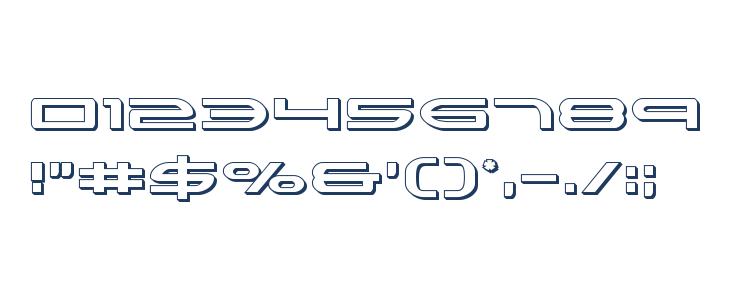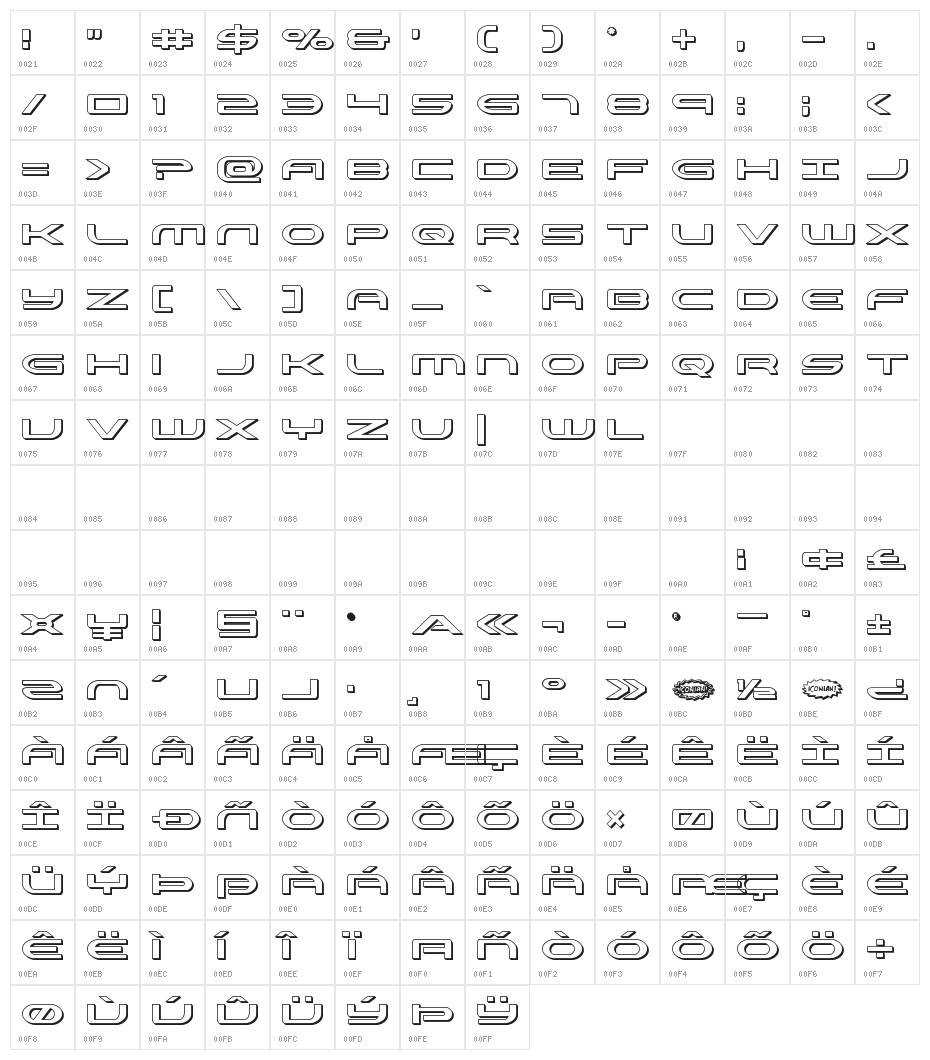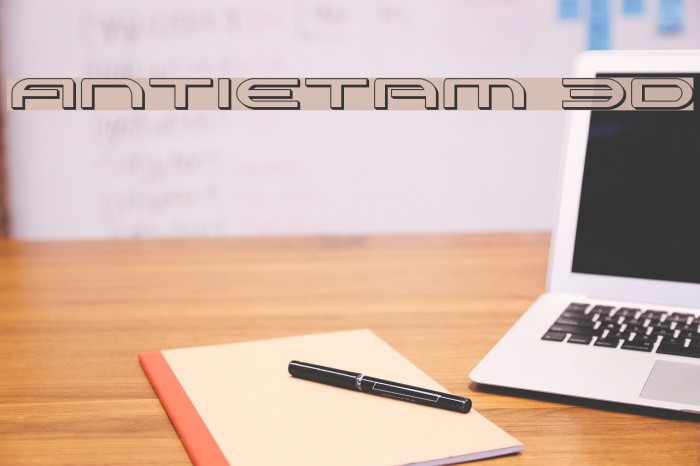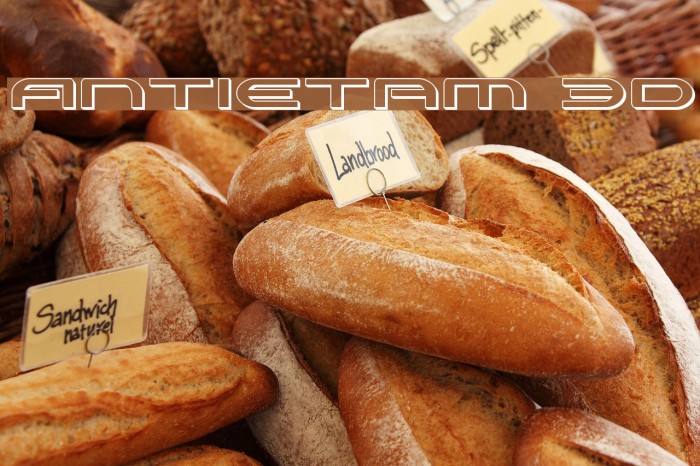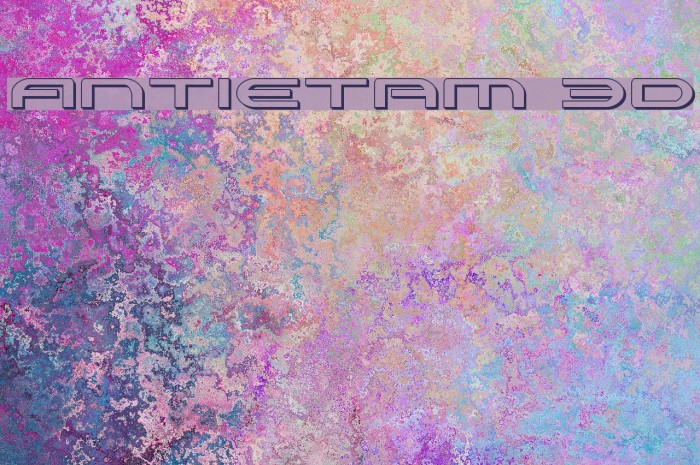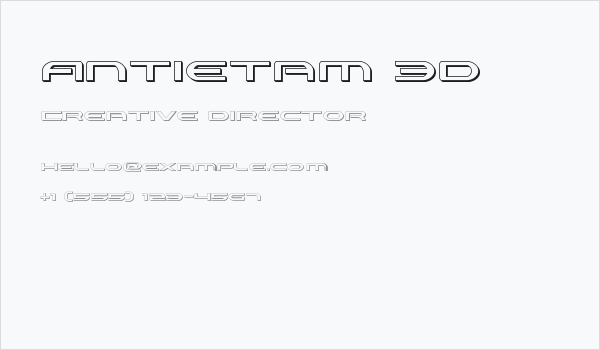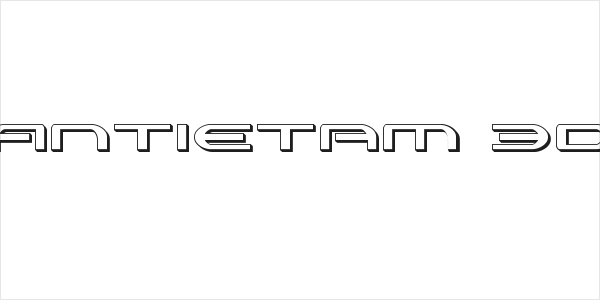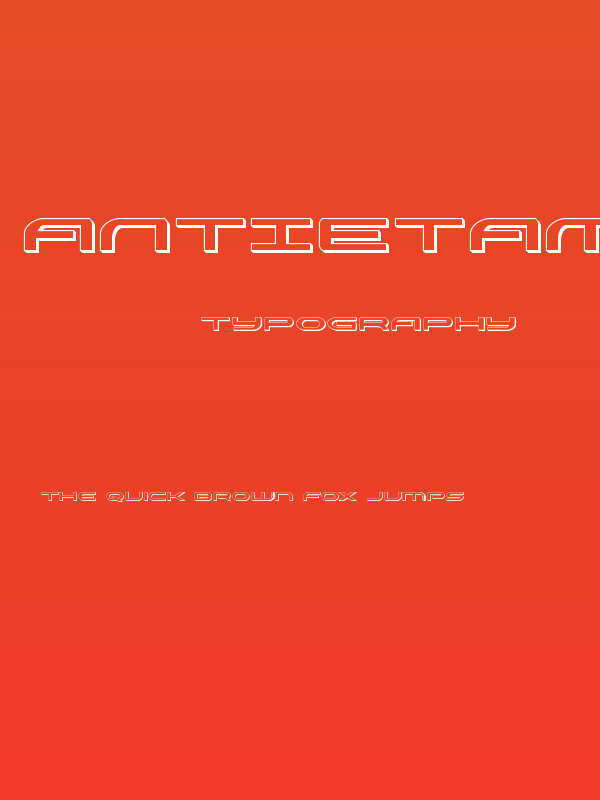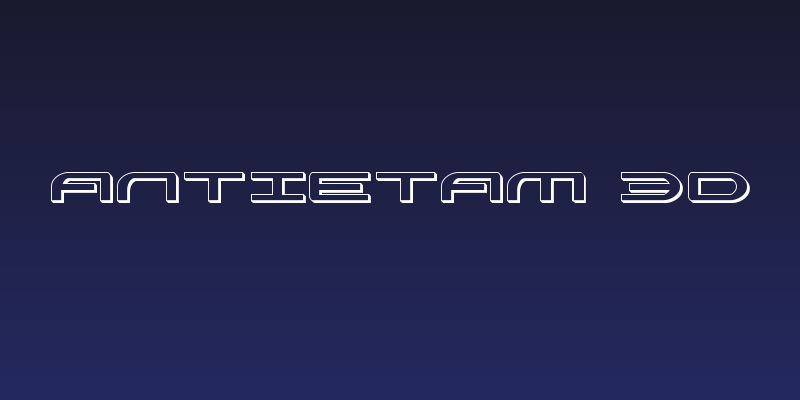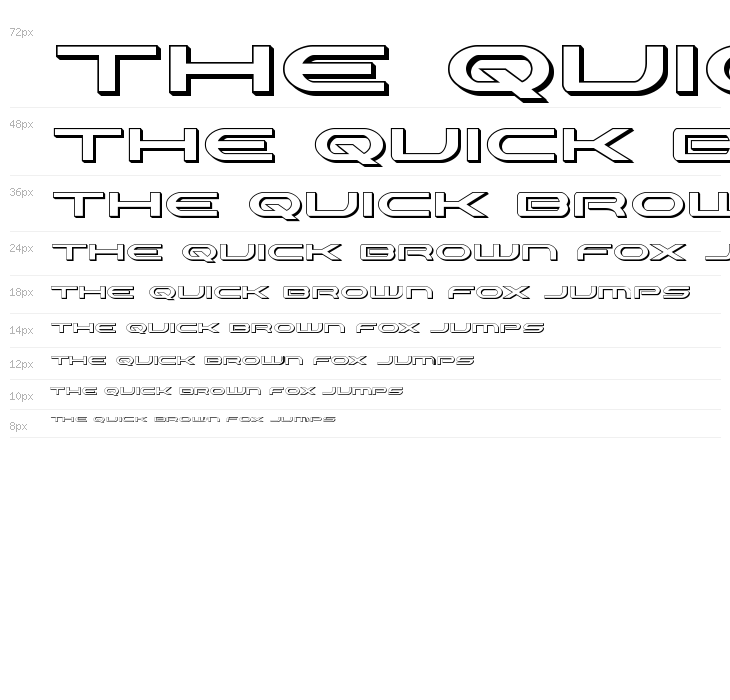
Antietam 3D Font
Antietam 3D Description
This font features a bold and futuristic design with a three-dimensional effect. The characters are outlined, creating a hollow appearance that adds depth and visual interest. The geometric shapes are consistent throughout, with sharp angles and clean lines that give it a modern and technical feel. The uppercase and lowercase letters maintain a uniform style, while the numbers and special characters complement the overall aesthetic. This font is ideal for projects that require a contemporary and eye-catching look.